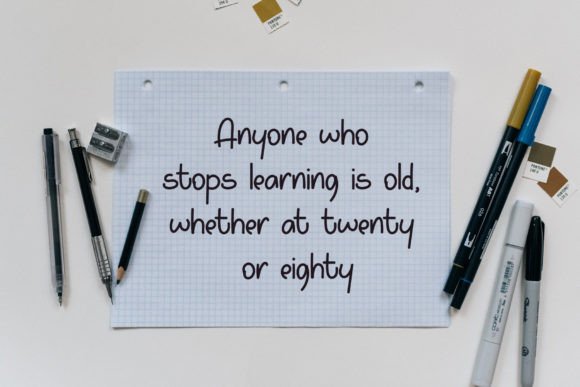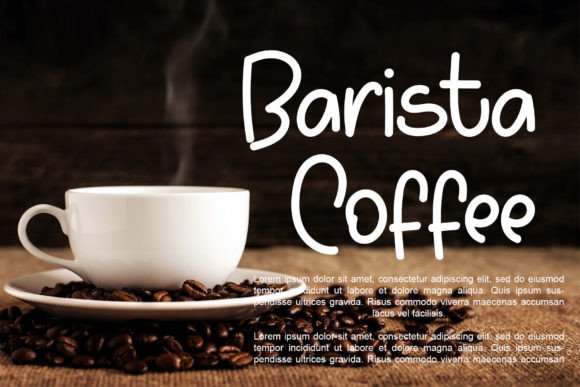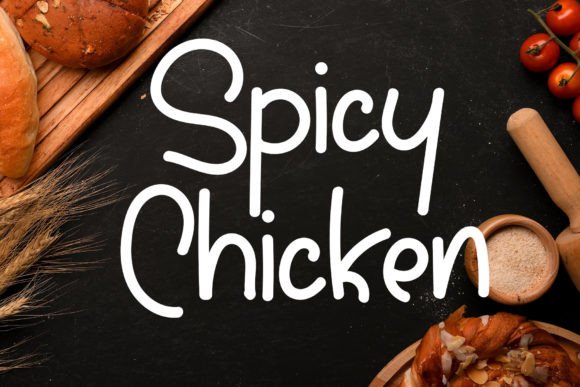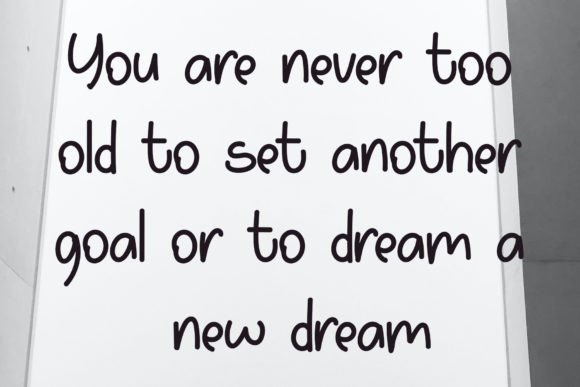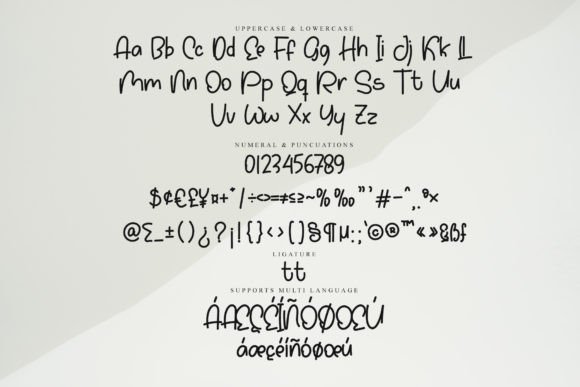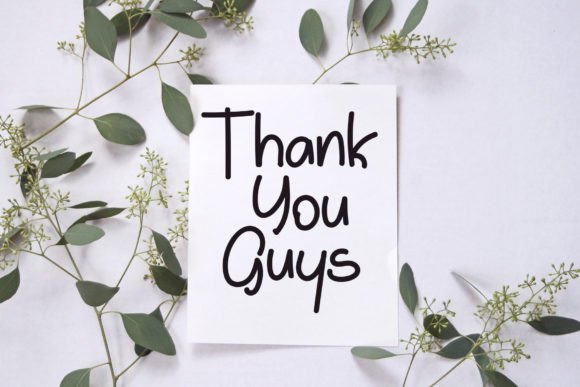
Introduction to Make a Books Font
Have you ever been in the midst of a creative project, pouring your heart and soul into it, only to feel like something is missing? That’s when I discovered the magic of Make a Books Font – a high-quality, fun and cute handwritten display font perfect for crafters like you.
As designers, we’re always on the lookout for design resources that can bring our ideas to life. And let me tell you, Make a Books Font is a game-changer. With its transparent background and free download option, it’s a valuable addition to any designer’s toolkit. Whether you’re working on a personal project or a client’s brief, this font is sure to add a touch of whimsy and personality to your design.
Key Features of Make a Books Font
- High-quality, vector-based font design for a creative project, ideal as a design resource for book covers and titles.
- Unique, hand-drawn design with a transparent background, allowing for easy customization and composition.
- Includes a range of characters, including uppercase and lowercase letters, numbers, and special characters, making it a versatile design resource.
Honest Review: Make a Books Font
I recently stumbled upon Make a Books Font while searching for a design resource for a creative project, and I must say it’s been a game-changer. The font is a high-quality, elegant script that adds a touch of sophistication to any design.
- ✨ High-quality, detailed design that’s perfect for creating a professional look.
- ✨ The transparent background makes it easy to layer over other design elements.
- ⚠️ The font is not as versatile as some other script fonts, and may not be suitable for all types of design projects.
- ⚠️ The font size may need to be adjusted carefully to achieve the desired look, as it can be prone to distortion at larger sizes.
Overall, I’m really impressed with Make a Books Font. It’s a great design resource that’s perfect for adding a touch of elegance to your creative projects. While it may have some limitations, it’s definitely worth considering for your next design project.
Designing with Make a Books Font
Make a Books Font is a high-quality design resource ideal for creative projects. This font can be used to create visually appealing graphics, posters, and other design elements.
Make a Books Font is commonly used in:
- Book covers and book designs
- Graphic designs and illustrations